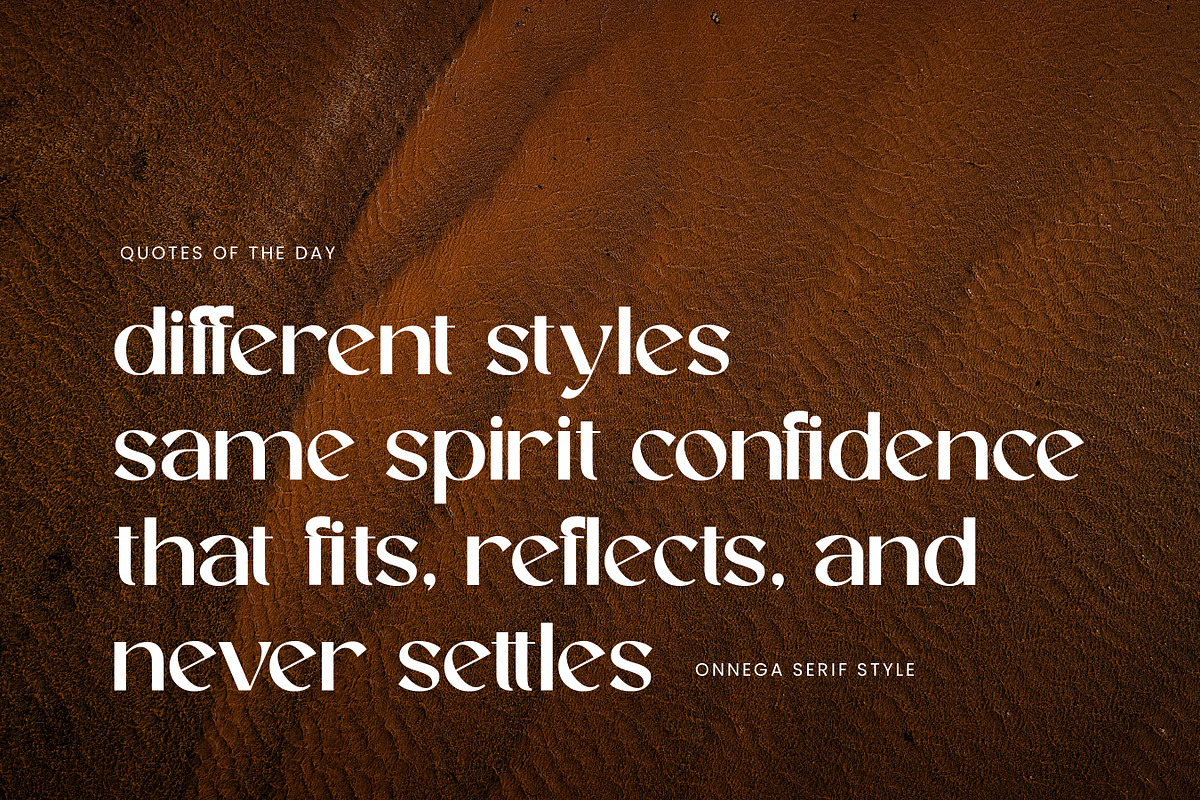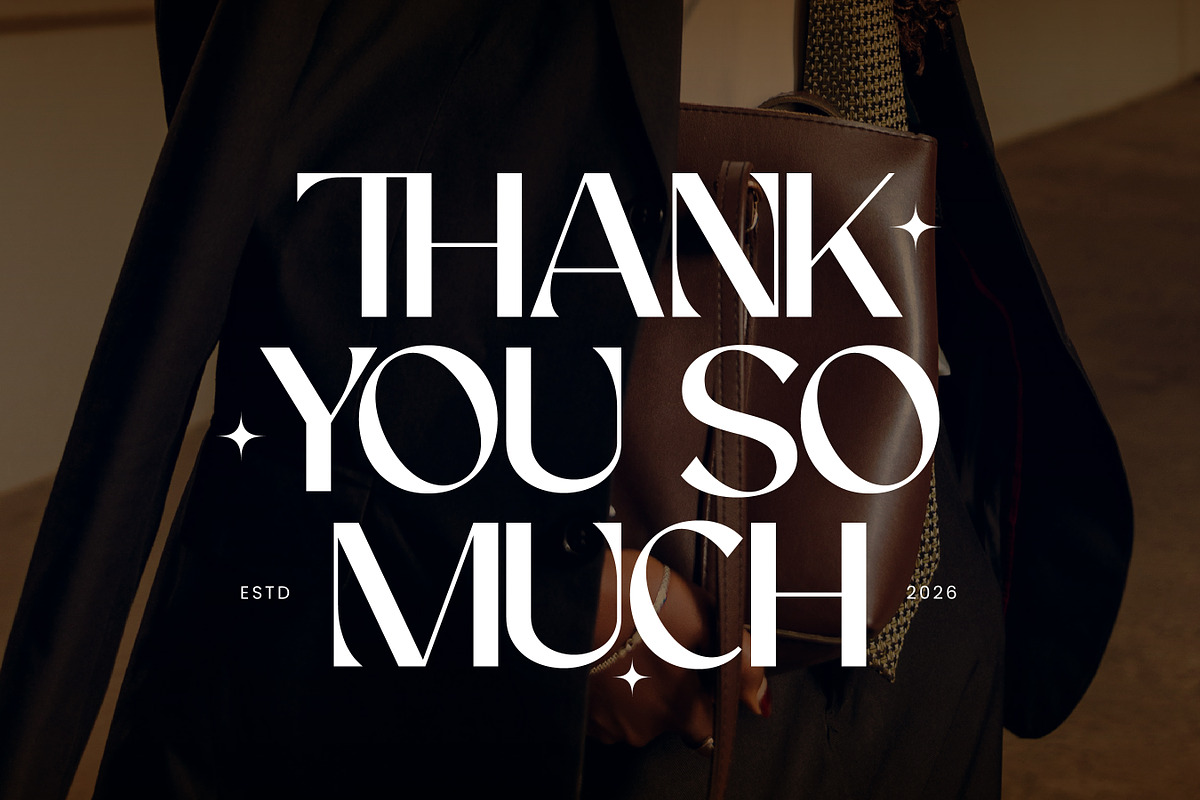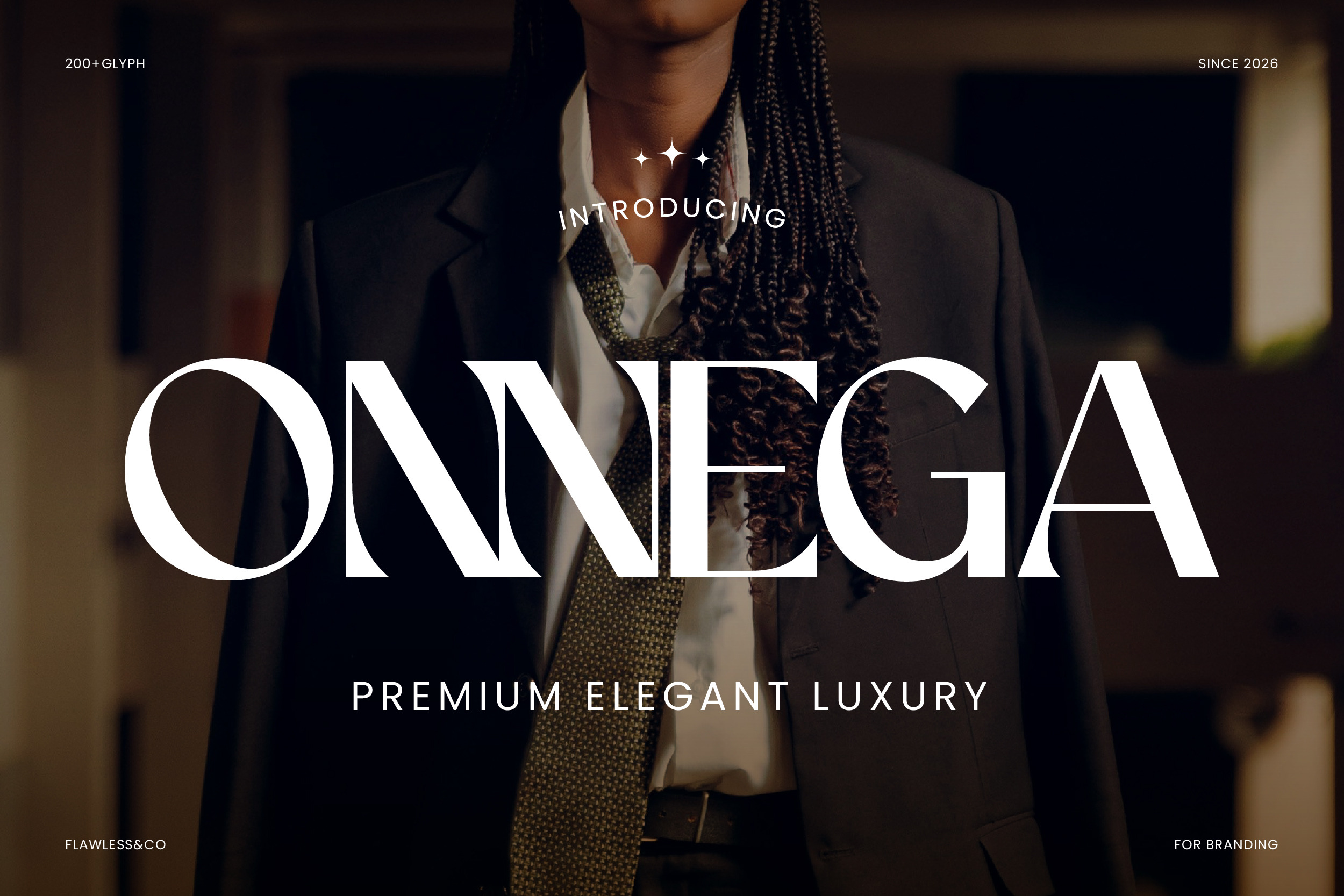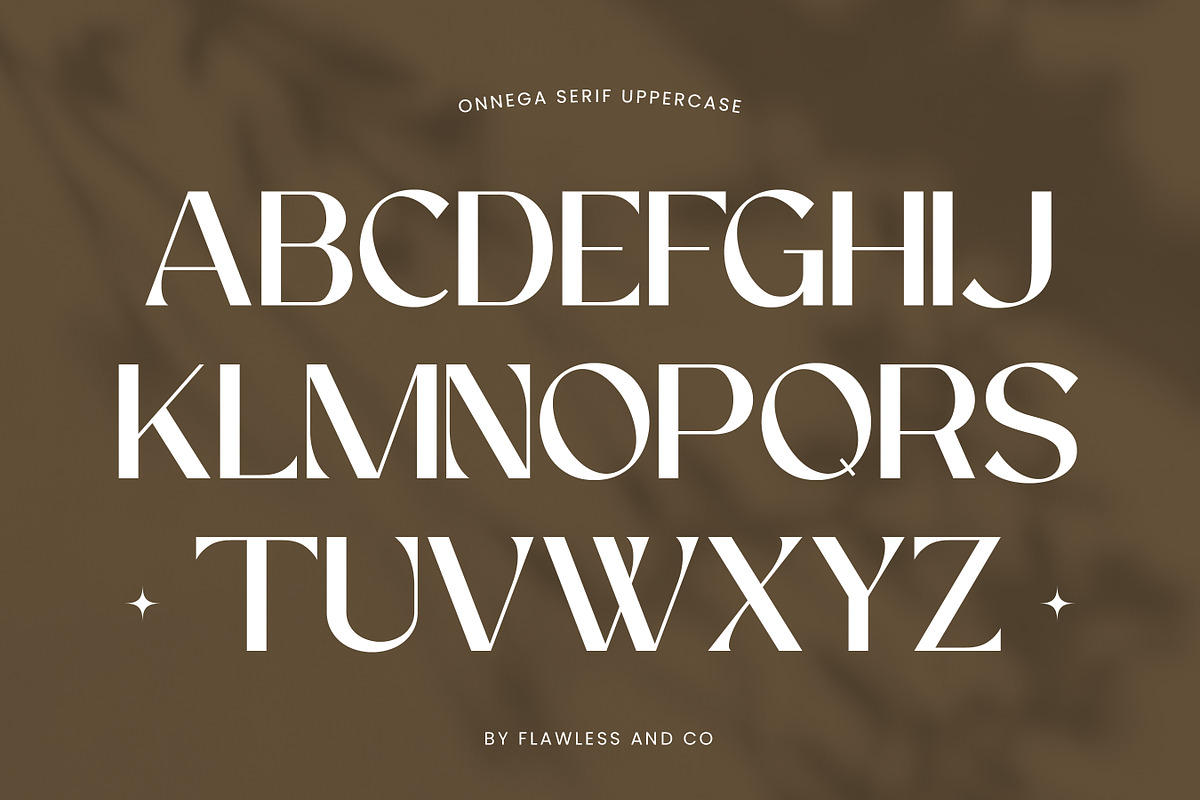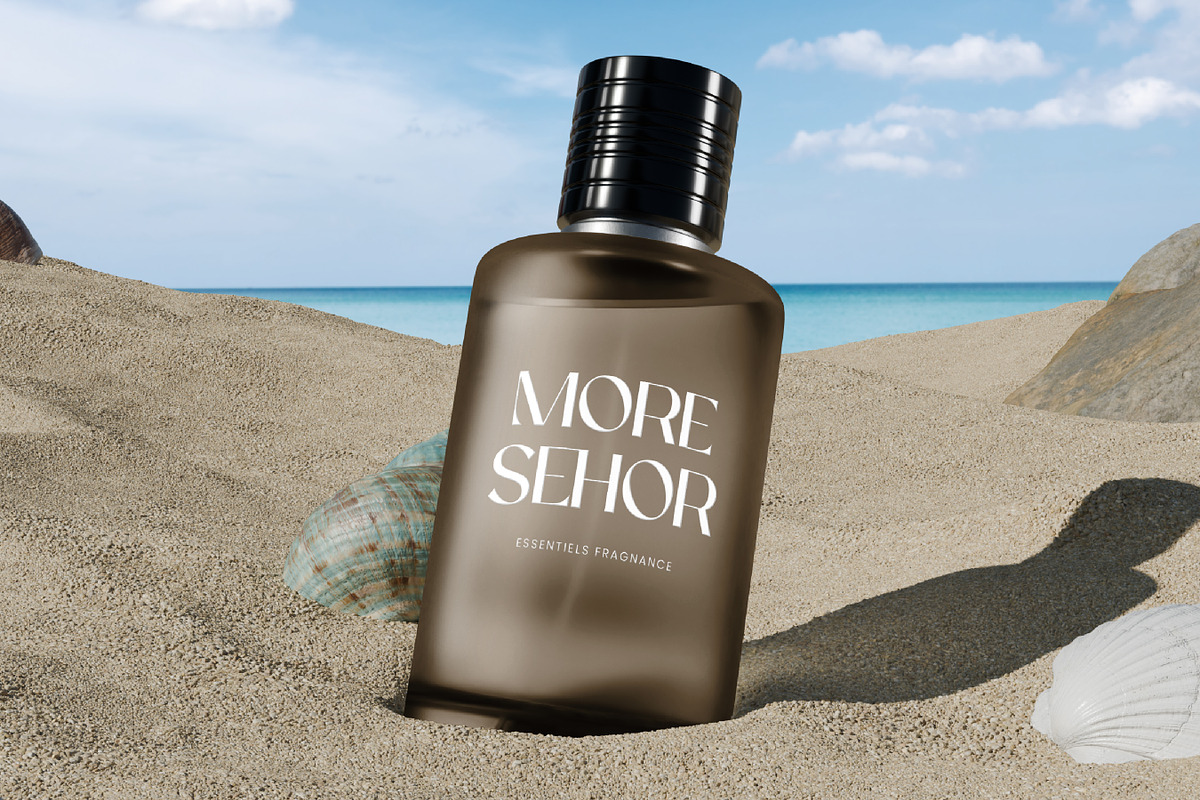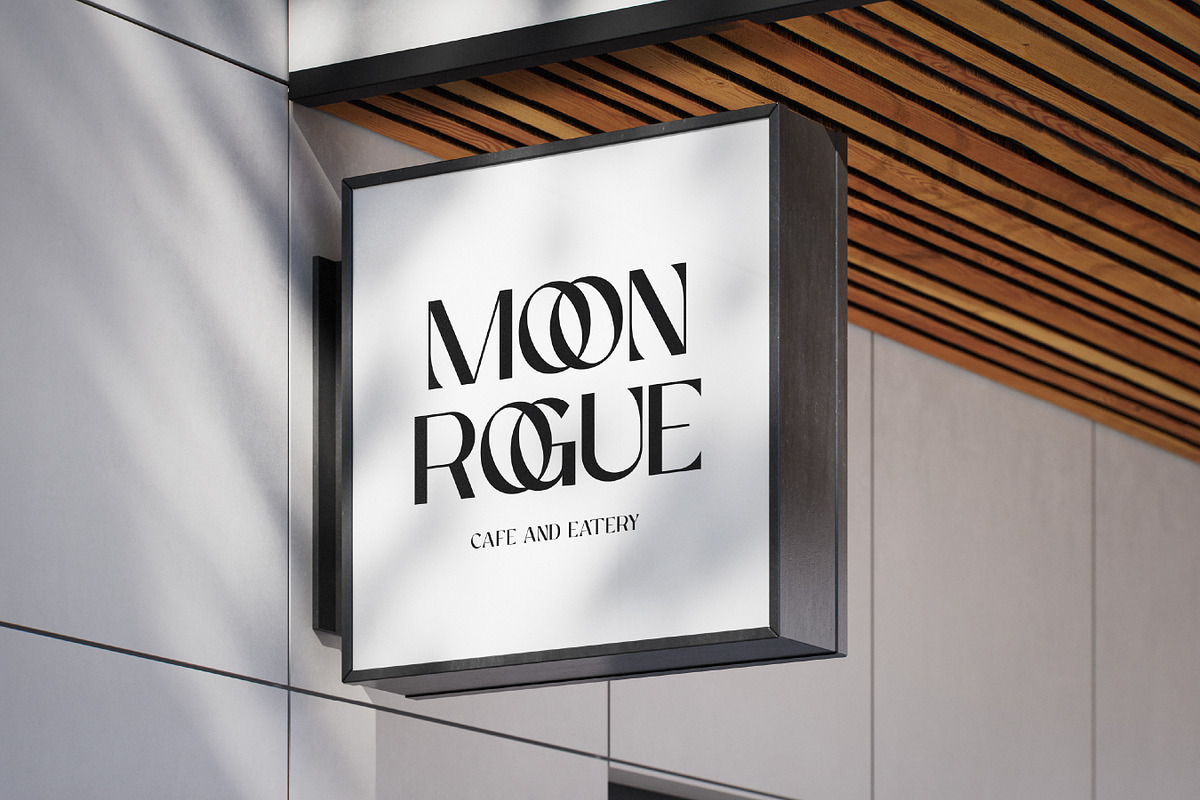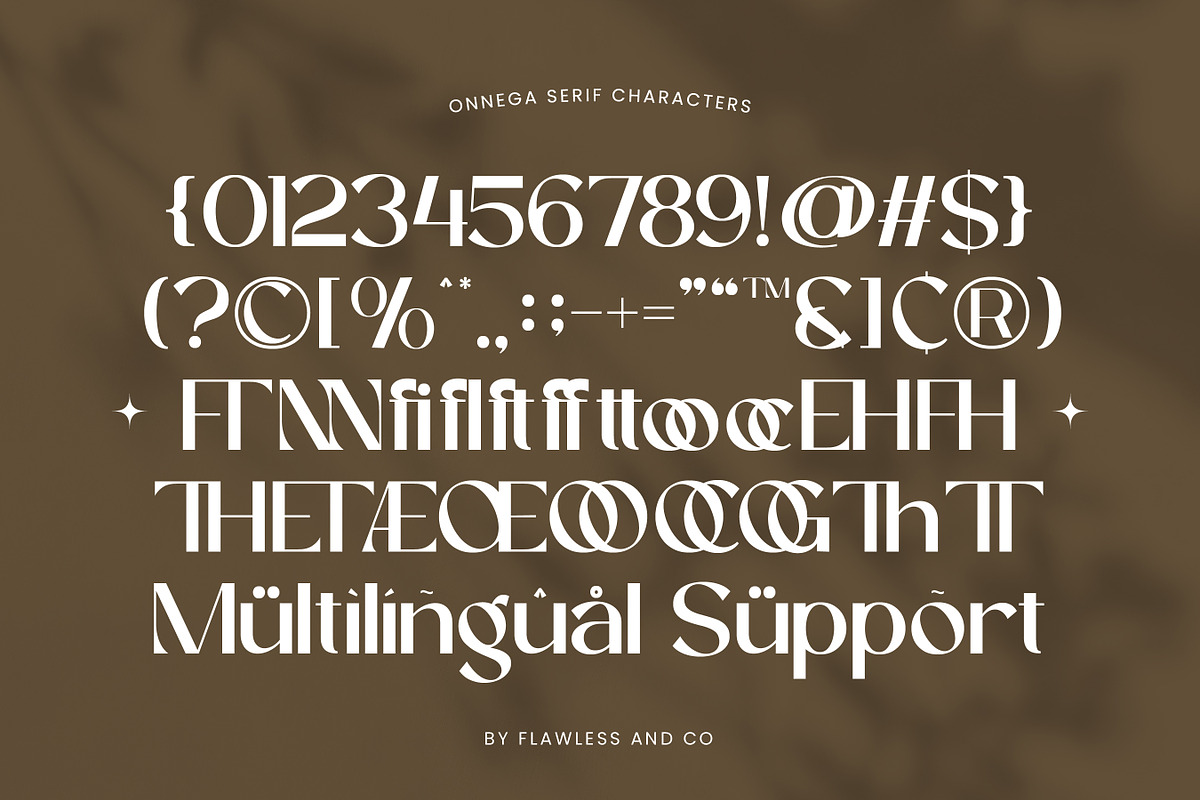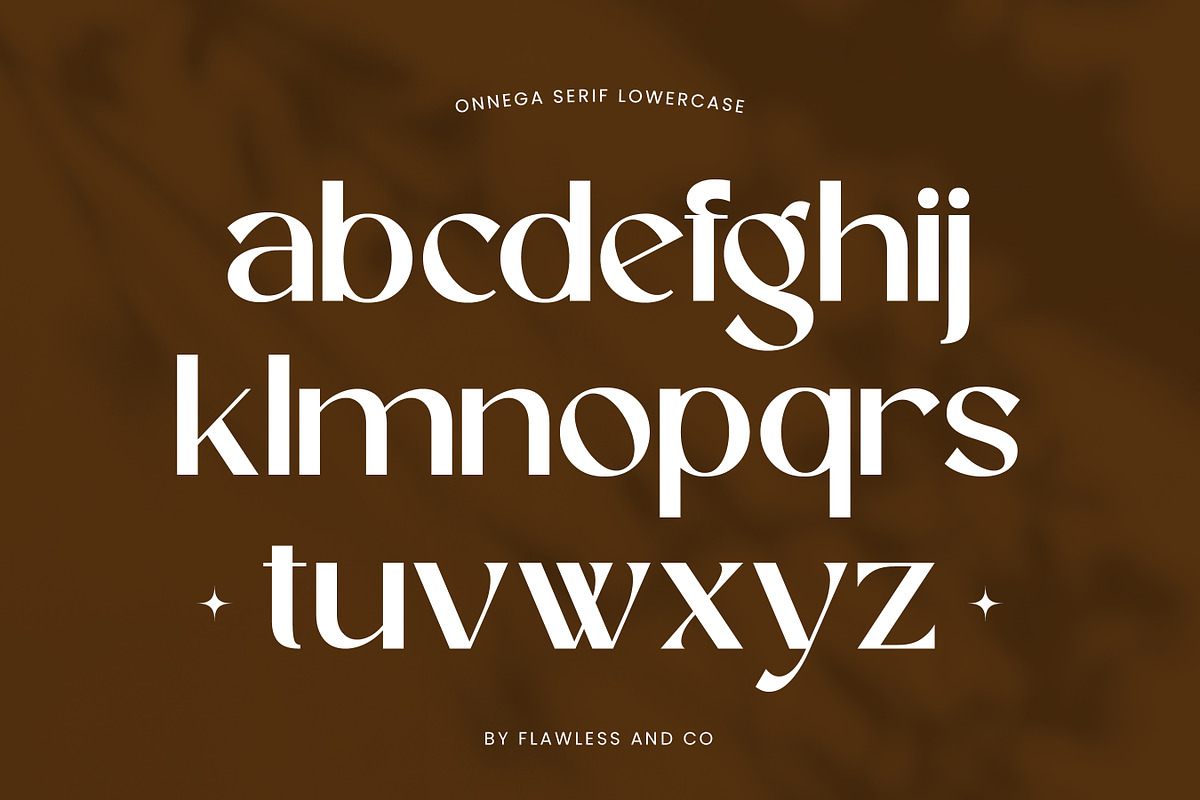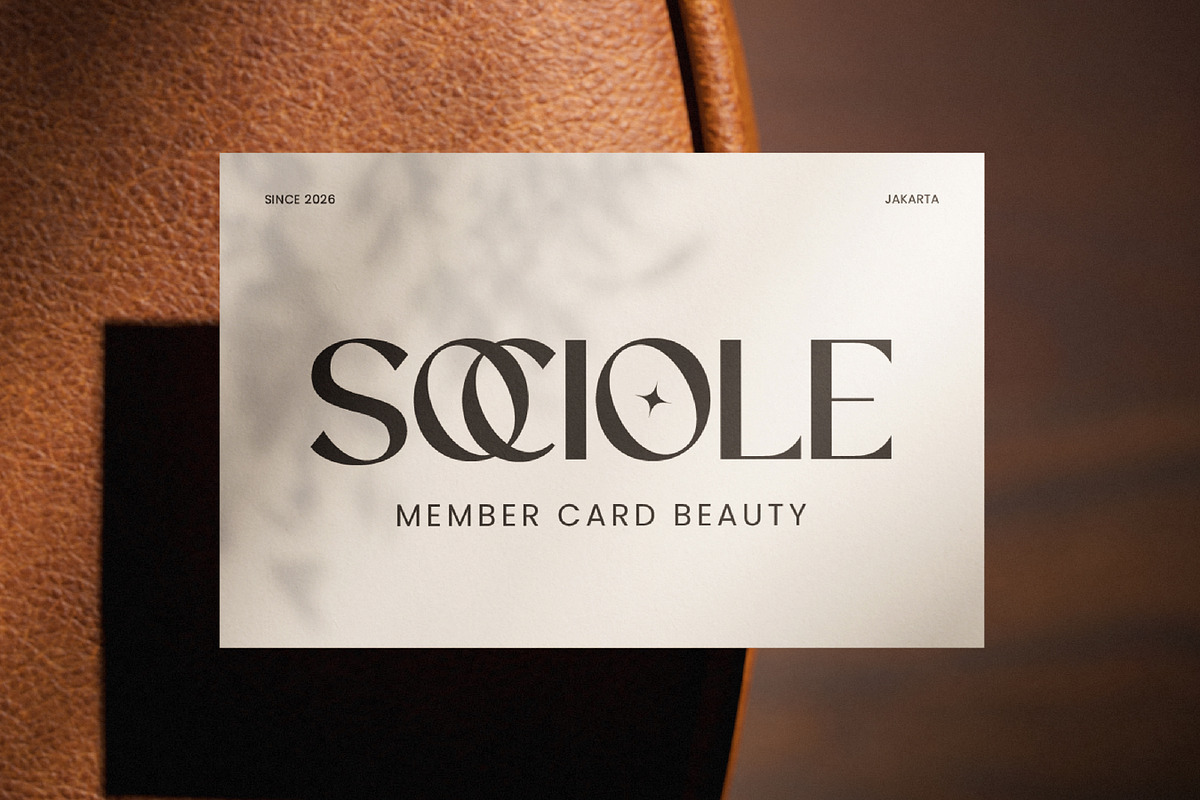
Onnega - Modern Elegant Serif Font
Onnega is a refined serif typeface that captures the essence of luxury through clean structure and elegant detail. Designed with balanced proportions, subtle curves, and high-contrast strokes, Onnega creates a graceful yet confident visual tone. Its timeless character blends classic sophistication with a modern edge, making it ideal for designs that seek exclusivity without feeling excessive. Every letter is crafted to deliver clarity, style, and a premium feel across any composition.
Who Should Use Onnega?
Onnega is suited for designers and brands that want a calm, confident expression of luxury. It works especially well for projects that need elegance, readability, and a strong visual identity without being overly decorative.
Suitable For:
- Luxury and minimalist branding
- Editorial and magazine design
- High-end logo and identity
- Premium packaging
- Fashion lookbooks and campaigns
- Boutique and lifestyle branding
- Social media aesthetics
- Wedding and invitation design